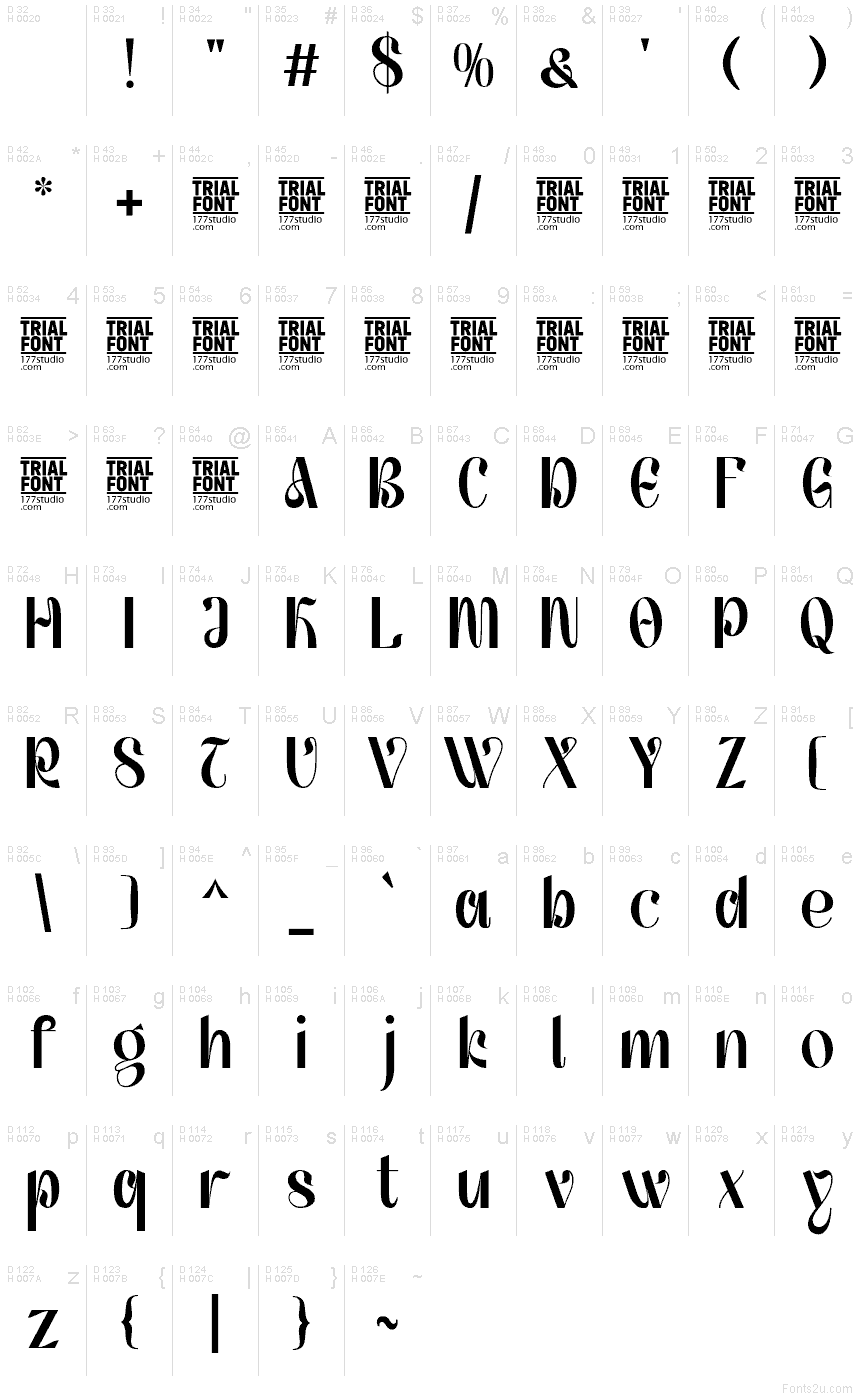
DIFFERENT MESSAGES DEMO Regular
Different Messages font by 177Studio is a bold display font with a vintage-inspired, serif style. Ornamental and decorative, this elegant typeface features intricately detailed characters bringing an authentic touch to your projects. In addition to its artistic letters it also includes varied stylistic ligatures.